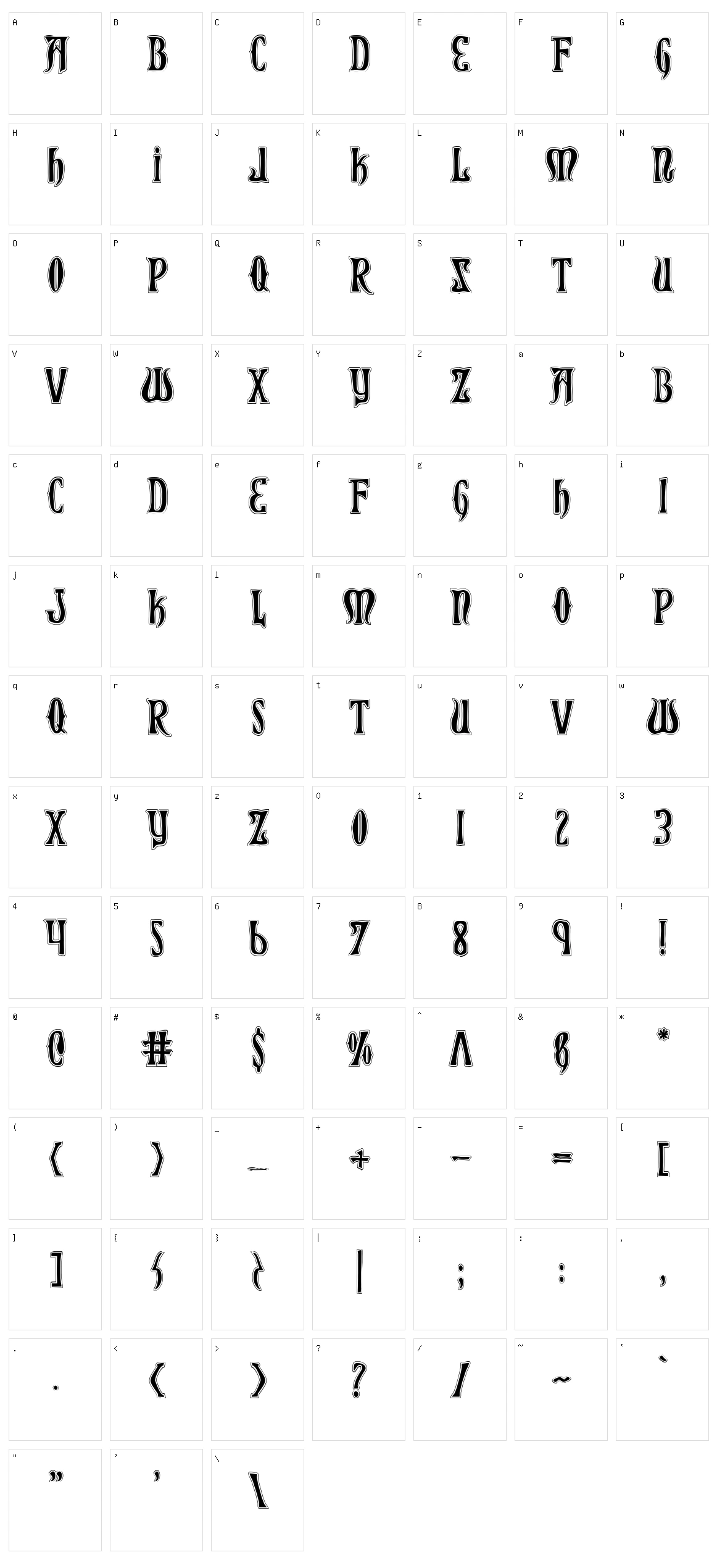
Xiphos
Category: Celtic & Gothic
This font comes in 17 versions with full characters- Regular, 3D, Italic, Condensed, Condensed Italic, Expanded, Expanded Italic, Light, Light Italic, Expanded Light, Expanded Light Italic, College, Rotated, Counter-Rotated, Leftalic, Horror and Gradient Castle.
There are a number of alternate letter forms between the upper and lower cases.